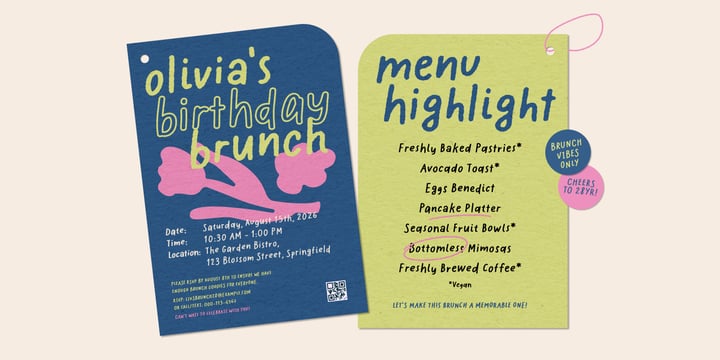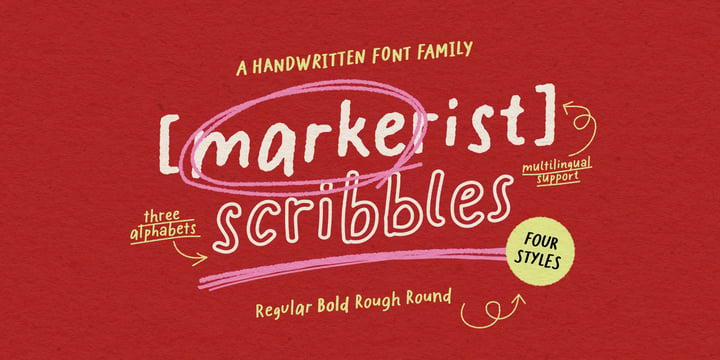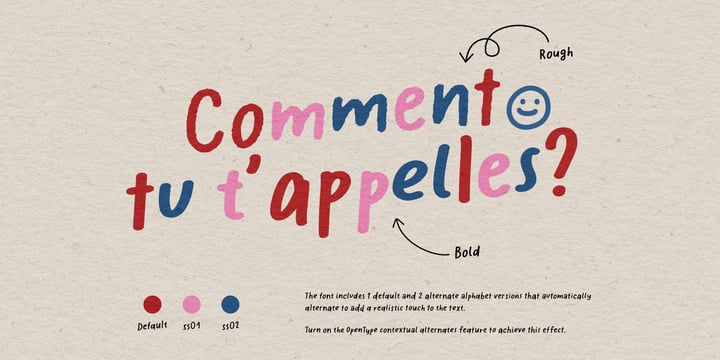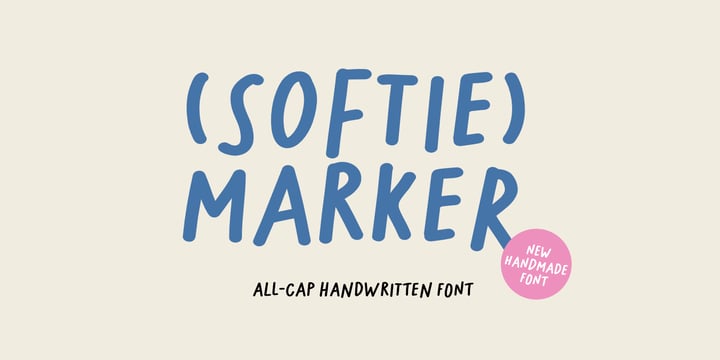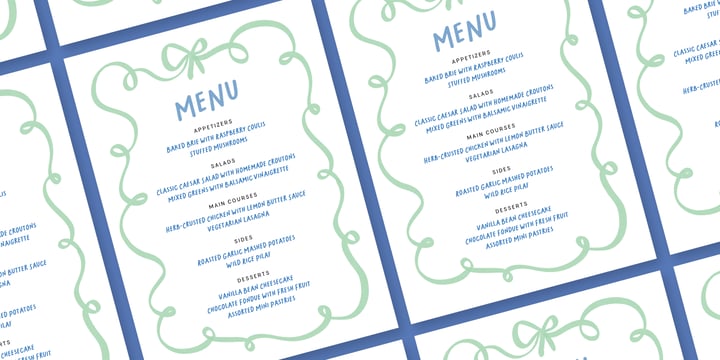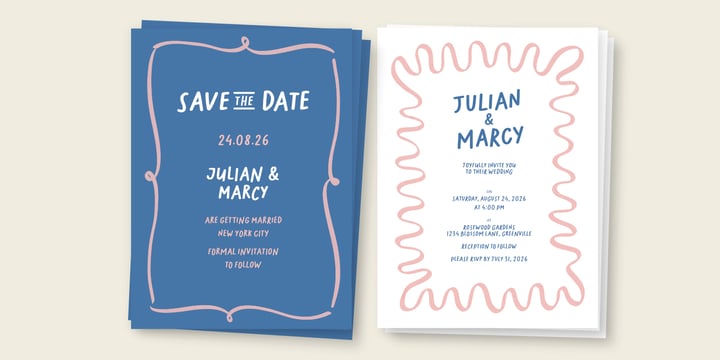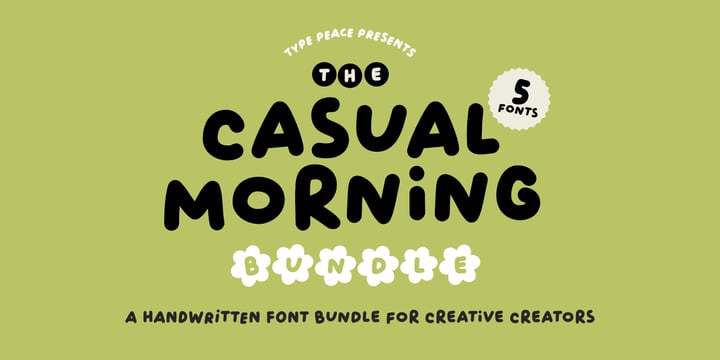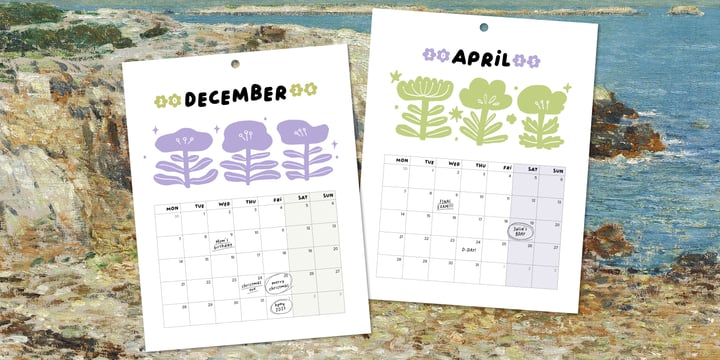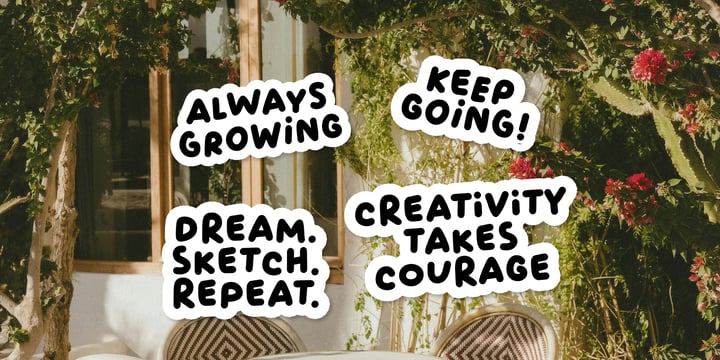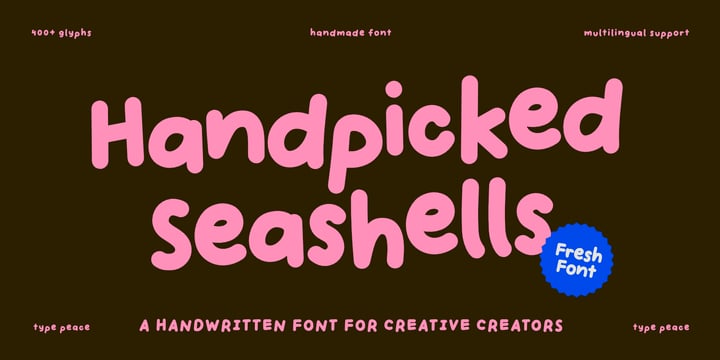
Hai Anh Nguyen
Hai Anh Nguyen is a graphic and type designer with many years of experience in branding and book publishing. Now focusing on type design, she specializes in creating handmade fonts through a process of constant experimentation with different media. Her work bridges the gap between traditional craftsmanship and contemporary design, providing expressive, soulful typography for creative projects worldwide.